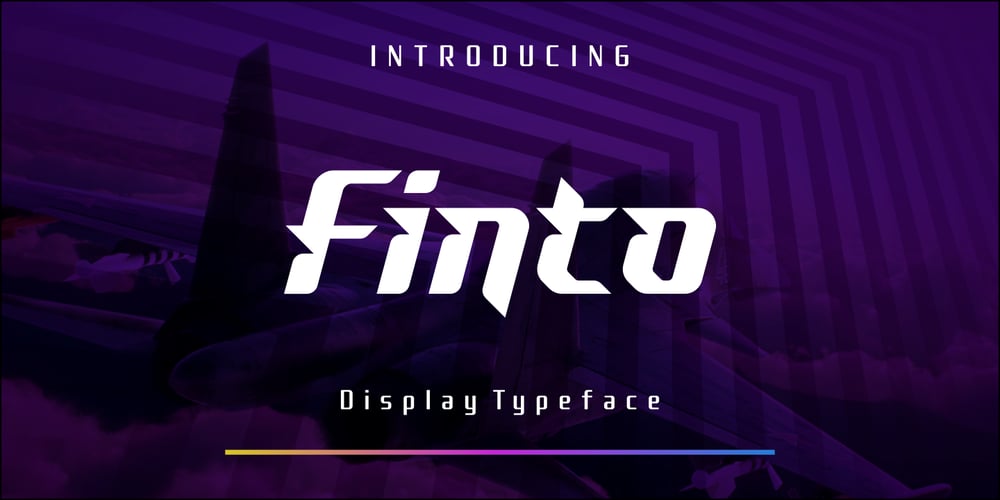
Finto Font Family was designed by Anthonie Van Hayu and published by ARToni. Finto contains 1 styles and family package options. Finto is a display typeface inspired by a jet plane, styled to give a feeling of aerodynamic speed. It is carefully handcrafted to preserve detail and smooth shapes. It is suitable for sports, adventures and more. It includes multi-lingual support as well.